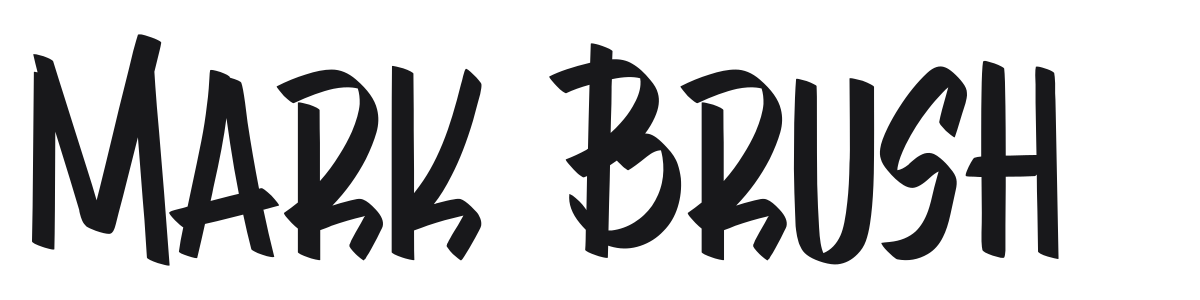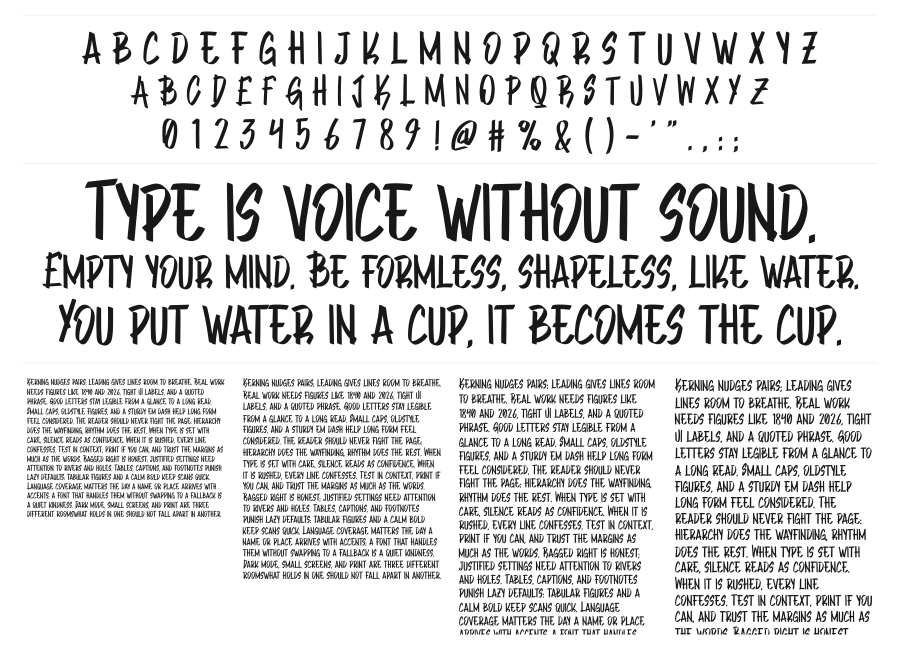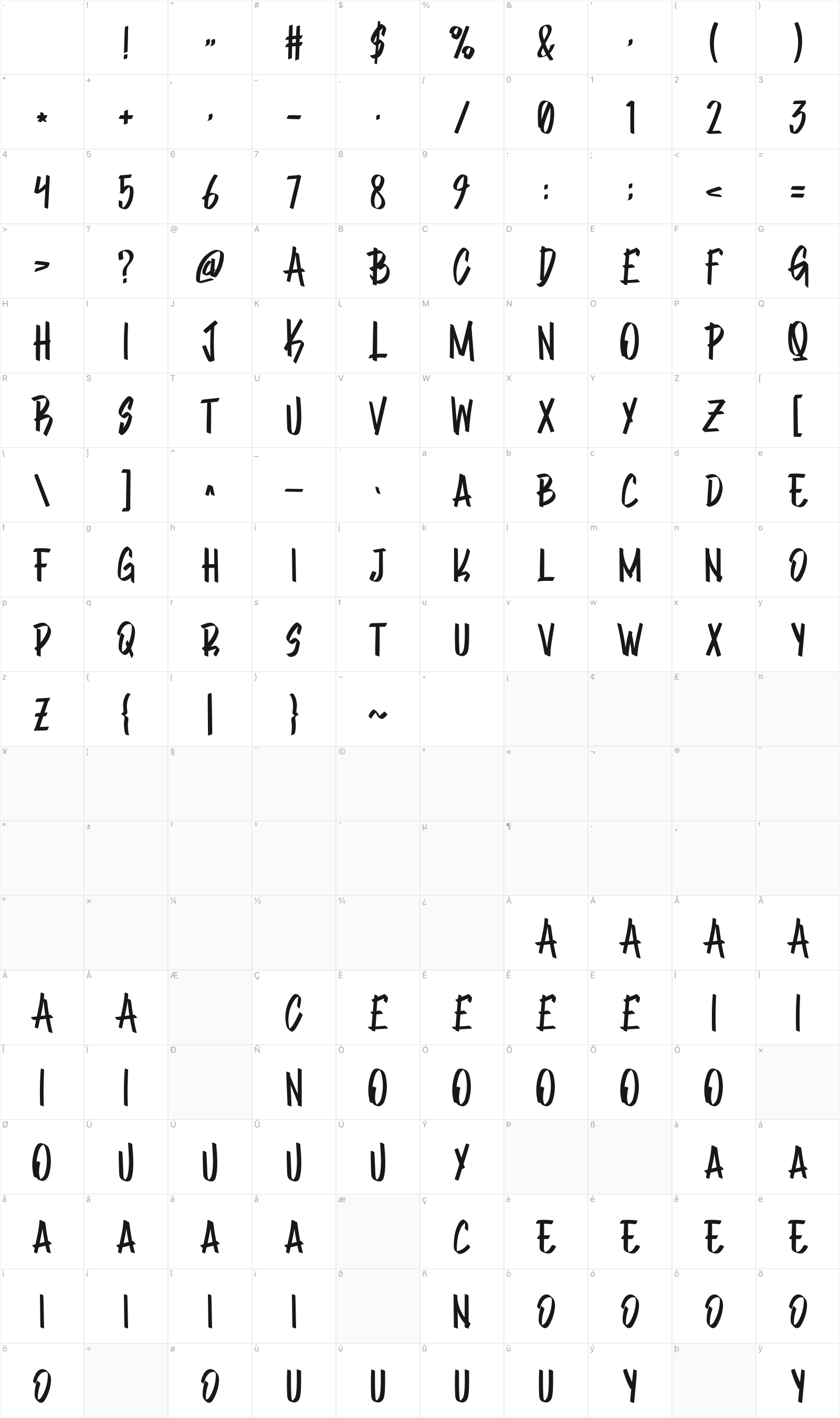
Mark Brush
by Modestype Studio
Mark Brush is a bold upright brush font with a graffiti-influenced edge and hand-painted spontaneity. The condensed, high-contrast strokes and slightly irregular character heights give it an authentic street-art feel without crossing into illegibility. Strong at large sizes for posters, apparel graphics, and urban brand work.